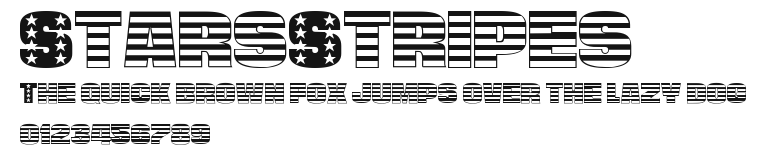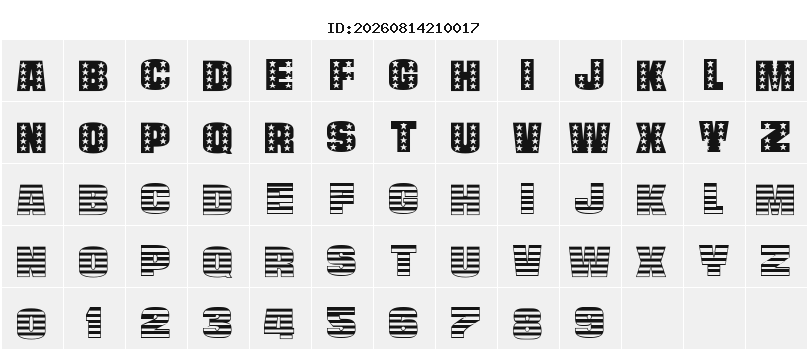
• Font Name: StarsStripes
• Full Font Name: StarsStripes
• PostScript Name: StarsStripes
About StarsStripes.ttf
StarsStripes.ttf is a modern, elegant sans-serif font designed for ultimate readability and visual harmony. Perfect for branding, headlines, web design, and print materials.